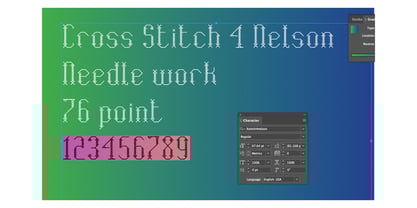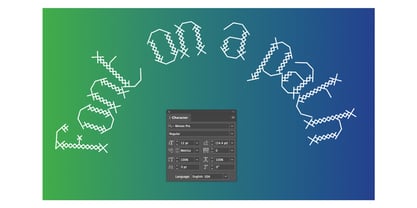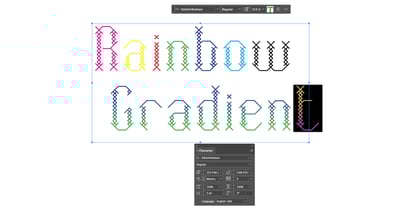
Xstitch4 nelson
by BACnOAK Fonts
The Xstitch4 nelson Font Family was designed by Brian Chavez and published by BACnOAK Fonts. Xstitch4 nelson contains 2 styles and family package options.
This font was designed to mimic the look of cross-stitch, so it’ll give you that “realistic” vibe on 14pt or 28pt Aida cloth (which, if you get that reference, you’re probably already deep into the world of needlework art). While it's not an exact replica, it’s close enough to make you say, "Yep, that’s some pretty legit stitching!"
Whats the difference between regular and bold. Think of regular as a single strand of floss and bold as two strands of floss that create more of a seed shaped stitch.
Designers: Brian Chavez
Publisher: BACnOAK Fonts
Foundry: BACnOAK Fonts
Introducing a unique font designed with needlework enthusiasts in mind. This innovative typeface utilizes a 14x14 grid within a 1x1 inch square, ensuring precision for various fabric counts. The half stitches are centered for optimal alignment, making it particularly suited for 28 count fabric. While perfection is an elusive goal in art, this font aims for accuracy and versatility. For those using dissolvable stabilizer, this font is an excellent choice, though adjustments to tracking and leading may be necessary for the best results. Discover a new way to combine your love for stitching and typography.